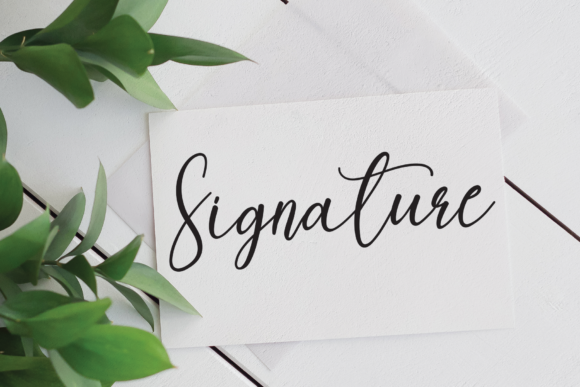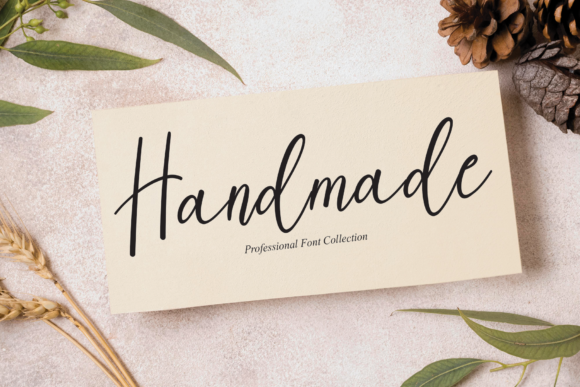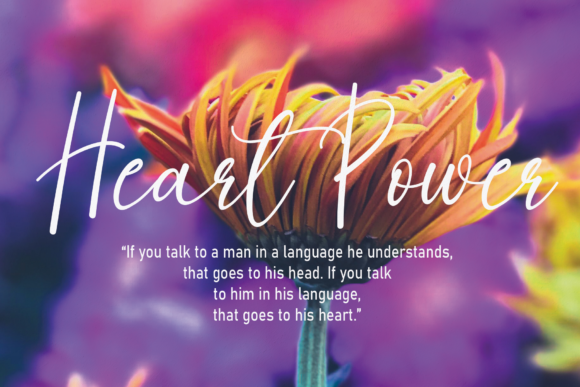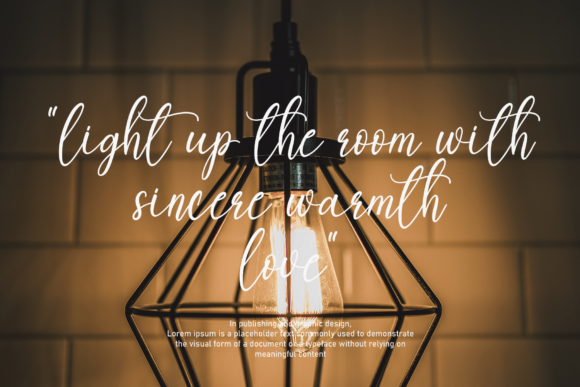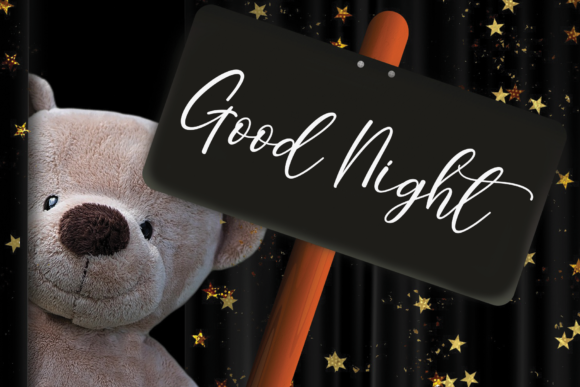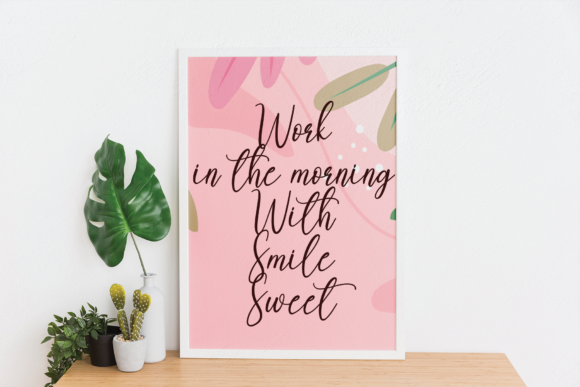
Introduction to Sellinda Font
As a designer, there’s nothing quite like the thrill of bringing a creative project to life. You’ve got a vision, a spark of inspiration that sets your imagination ablaze. You start brainstorming, sketching out ideas, and experimenting with different fonts – and that’s when you stumble upon it: the perfect font to elevate your design and make it truly unforgettable.
Enter the Sellinda Font, a high-quality, free download that’s sure to become your go-to design resource. With its unique, handwritten touch, this font is the perfect choice for creating eye-catching logos, branding, and quotes that truly pop. And with a transparent background, you can easily overlay it onto any image or design element, adding a touch of elegance and sophistication to your work.
For designers, the Sellinda Font is a valuable asset that can help take your creative projects to the next level. Whether you’re working on a personal project or collaborating with clients, this font is sure to make a lasting impression – and that’s what makes it truly special.
Key Features of Sellinda Font
- High-quality design: Sellinda Font is a premium font with a unique and elegant design, making it perfect for creative projects.
- Transparent background: The font has a transparent background, allowing for easy layering and customization in design projects.
- Large character set: The font includes a large character set, including uppercase and lowercase letters, numbers, and punctuation marks.
- High-resolution design: Sellinda Font is designed at a high resolution, making it suitable for use in both print and digital designs.
- Perfect for creative projects: Sellinda Font is ideal for use in creative projects such as logos, branding, and typography-based designs.
Honest Review: Sellinda Font
I recently stumbled upon the Sellinda Font while searching for a free design resource to elevate my creative project. The high quality and unique design caught my attention, and I was excited to give it a try.
- The Sellinda Font has a beautiful, elegant design that’s perfect for any project requiring a touch of sophistication.
- The transparent background makes it easy to combine with other design elements and create a cohesive look.
- The font may not be suitable for projects requiring bold or dramatic typography, as it’s more delicate in nature.
- The font family is relatively small, which may limit its versatility in certain design scenarios.
Overall, I’m impressed with the Sellinda Font. While it may not be the perfect fit for every project, it’s a great addition to any designer’s toolkit. The high quality and unique design make it a valuable resource for creative projects, and the free download is a definite bonus.
Tips for Getting the Most Out of Sellinda Font
Use Sellinda Font with a transparent background to create a subtle and elegant design. Experiment with different font sizes and styles to add depth and visual interest to your project.
The Sellinda Font is perfect for a variety of creative projects, including wedding invitations, business cards, and social media graphics. Its elegant style and high-quality design make it an ideal choice for any project that requires a touch of sophistication and class.